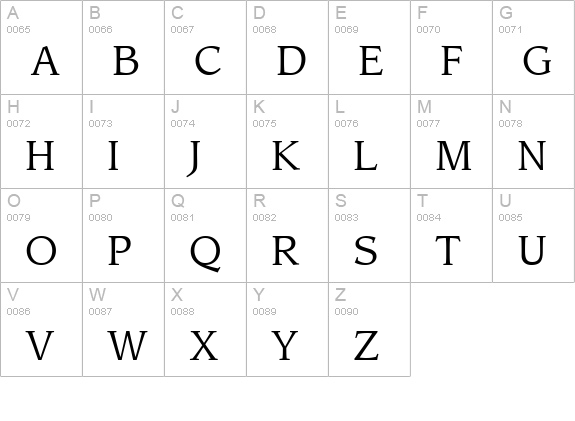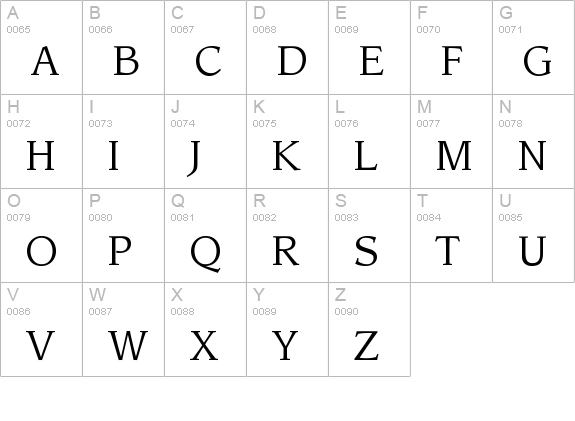
Advisor SSi Font Details
Introducing Advisor SSi font - a stylish and versatile typeface that is perfect for all your design needs. With its elegant curves and modern look, Advisor SSi is sure to make your projects stand out. This font is ideal for branding, logos, headlines, and more. But the best part? Advisor SSi is completely free! That's right, you can download this amazing font at FontsMarket.com without spending a penny. Whether you're a designer, a business owner, or just someone looking to add a little flair to your projects, Advisor SSi is the perfect choice. Don't miss out on this fantastic opportunity to elevate your designs with this beautiful and free font. Download Advisor SSi now and let your creativity shine!